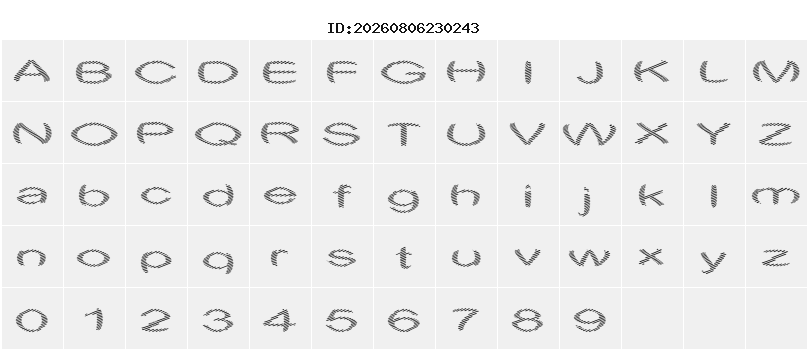
About Obtuse One.ttf
Obtuse One.ttf is a modern, elegant sans-serif font designed for ultimate readability and visual harmony. Perfect for branding, headlines, web design, and print materials.